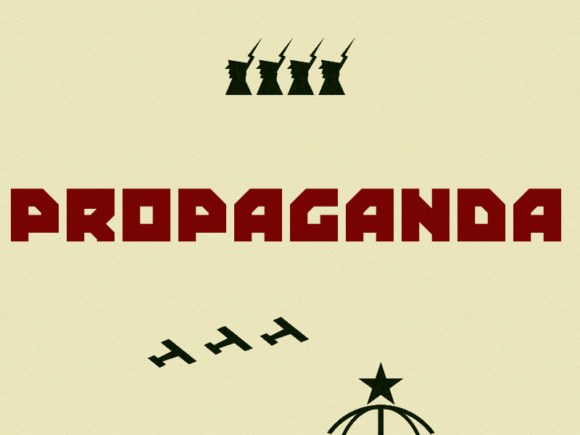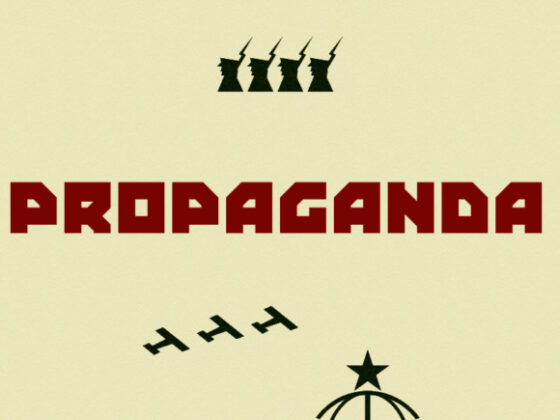
Propaganda
About Propaganda Font
Propaganda is supposed to look like lettering that might appear on a soviet propaganda poster. It has a striking look and is great for every design that needs to stand out.